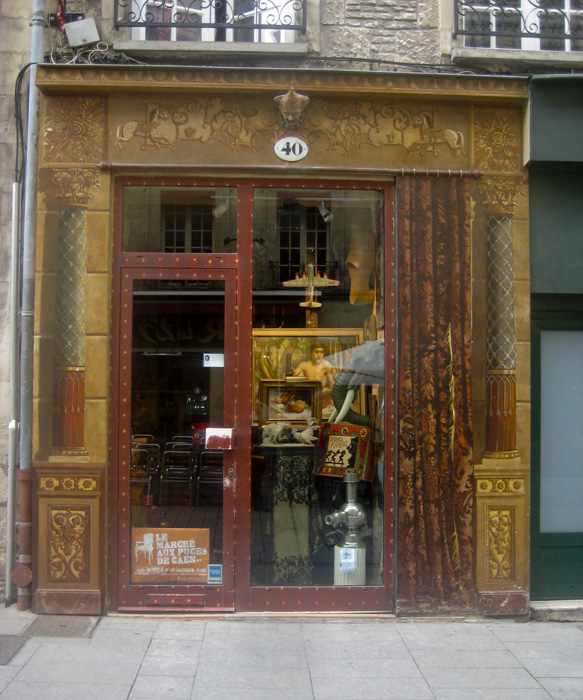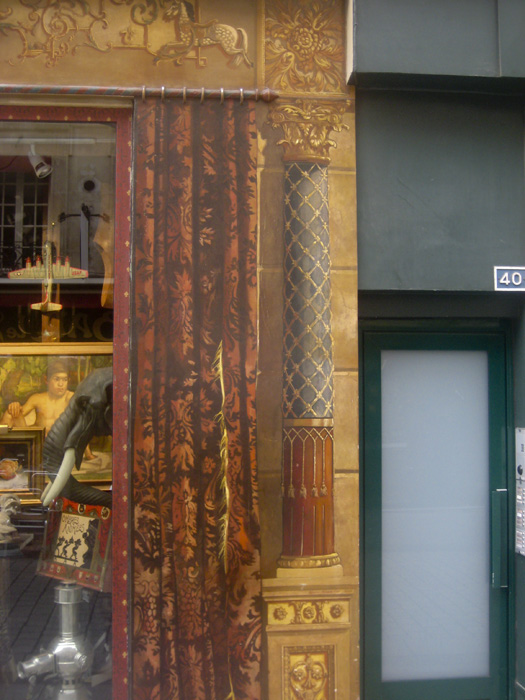
trompe l'oeil
When I was in France last year staying with a friend I came across this wonderful trompe l'oeil on a shop front.
Thought you guys should see it. It looked real old up close but no dates or signed. beautiful work..